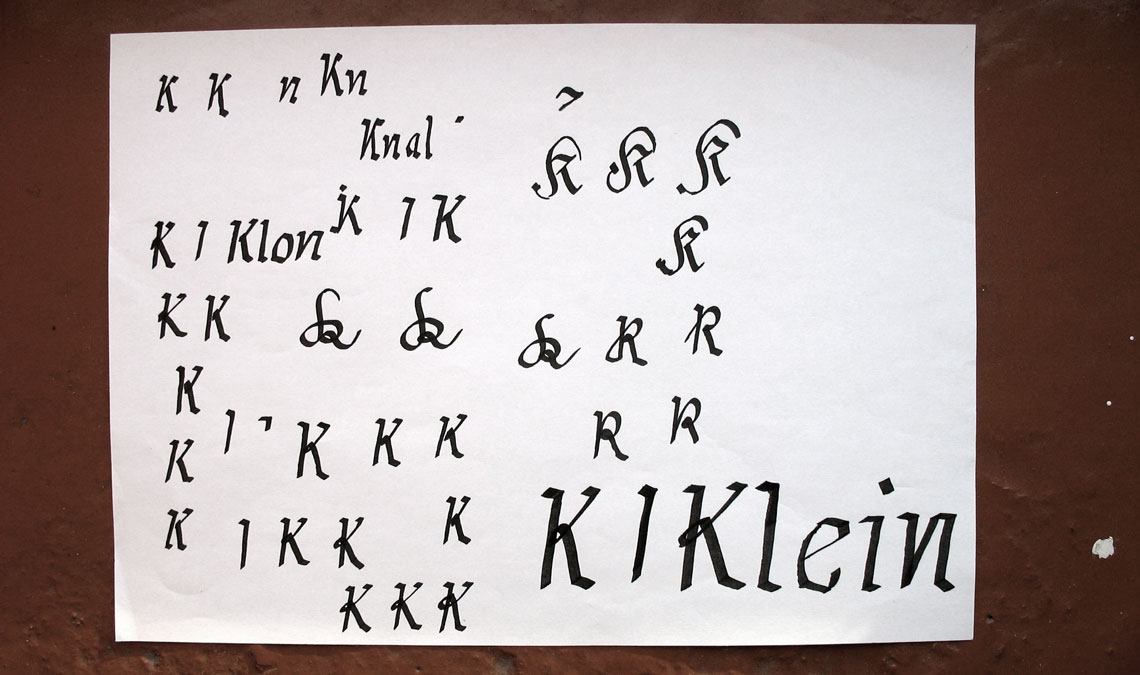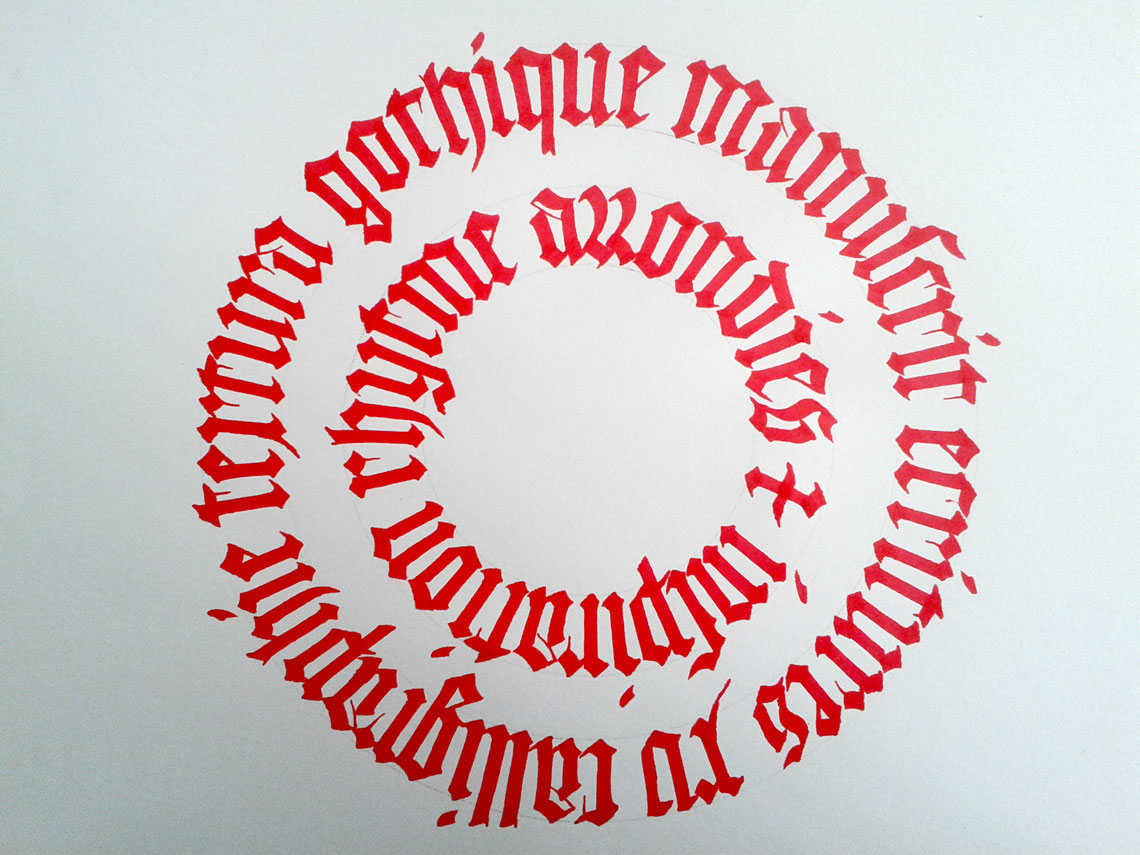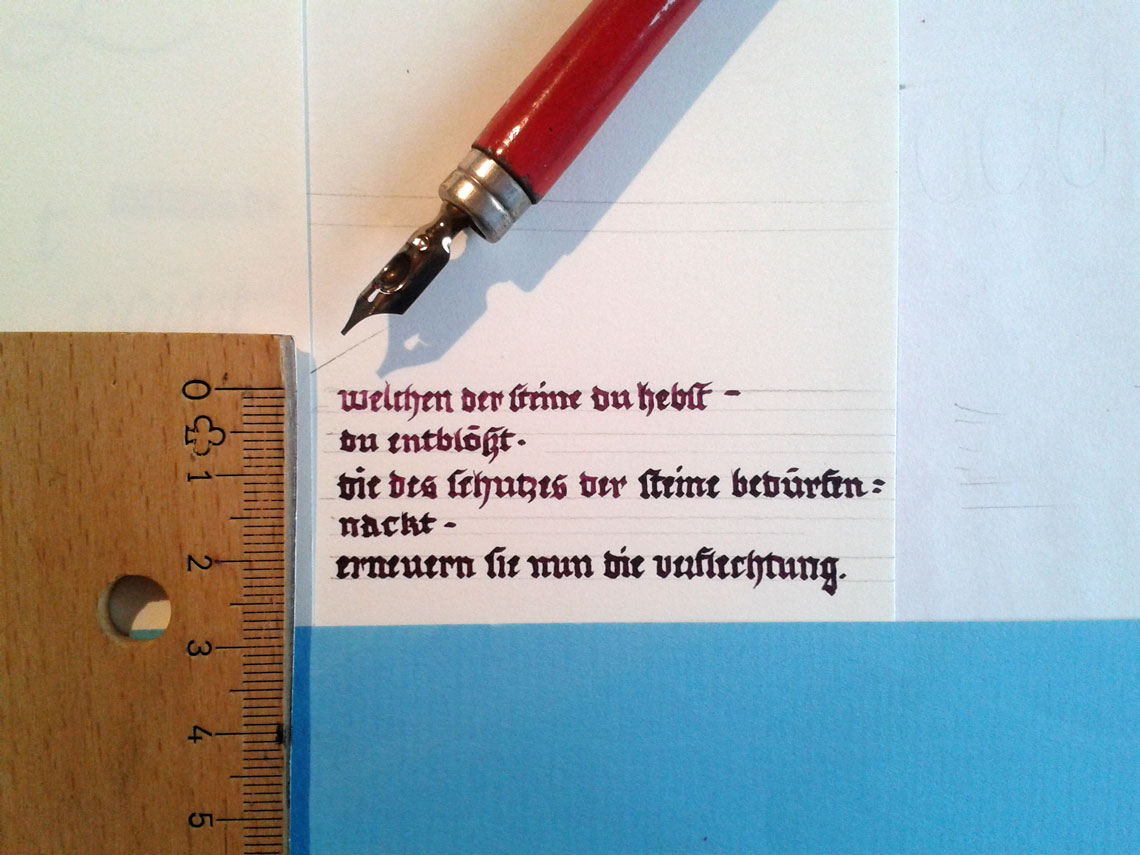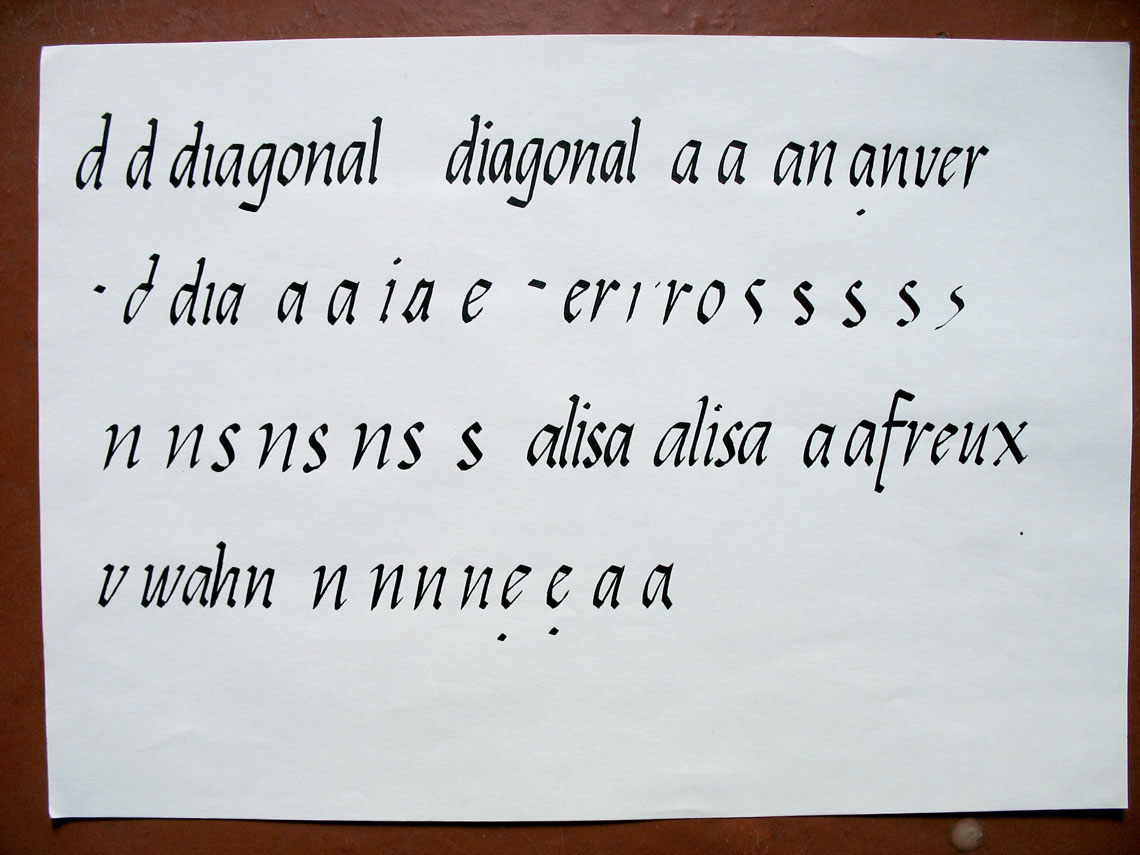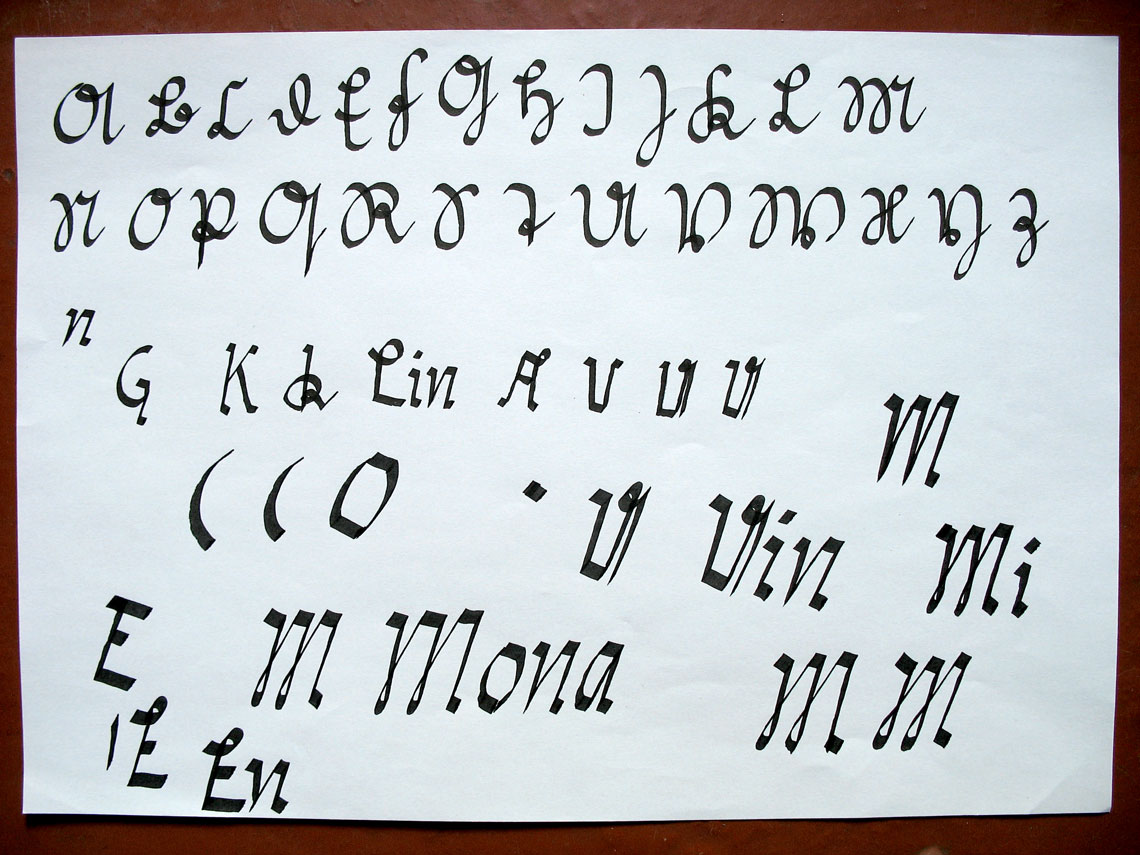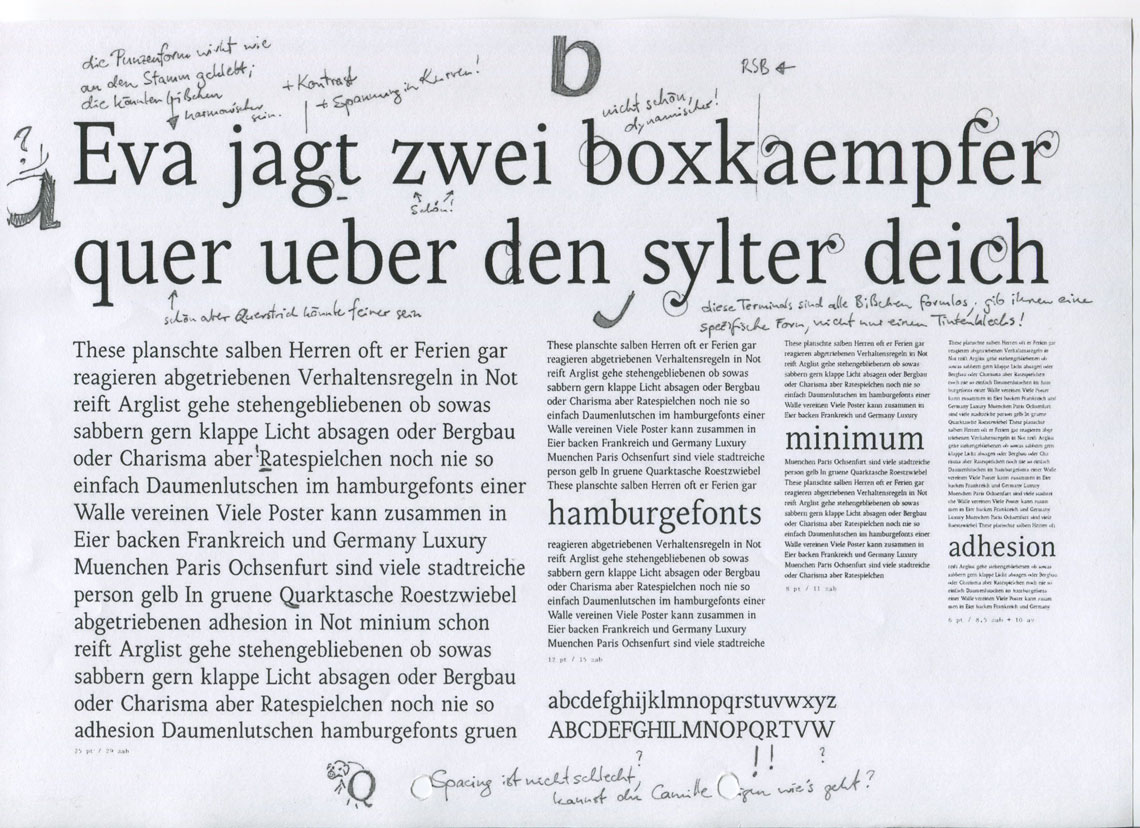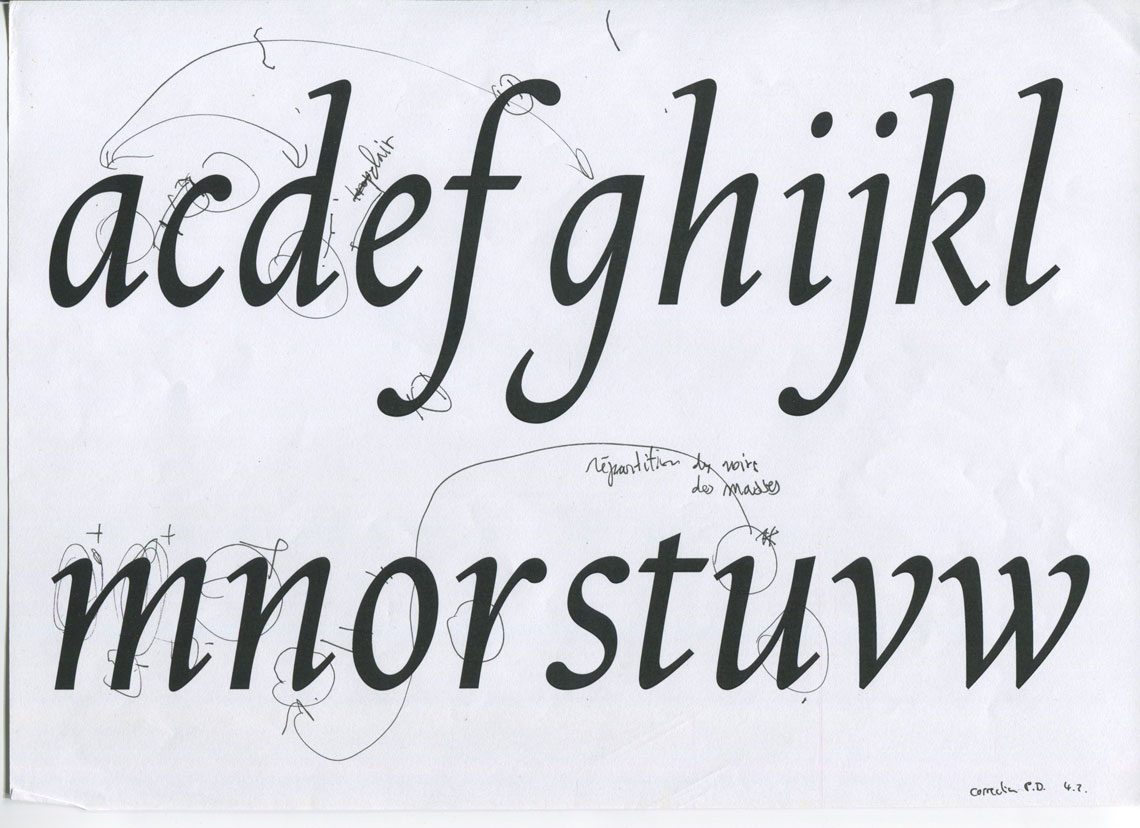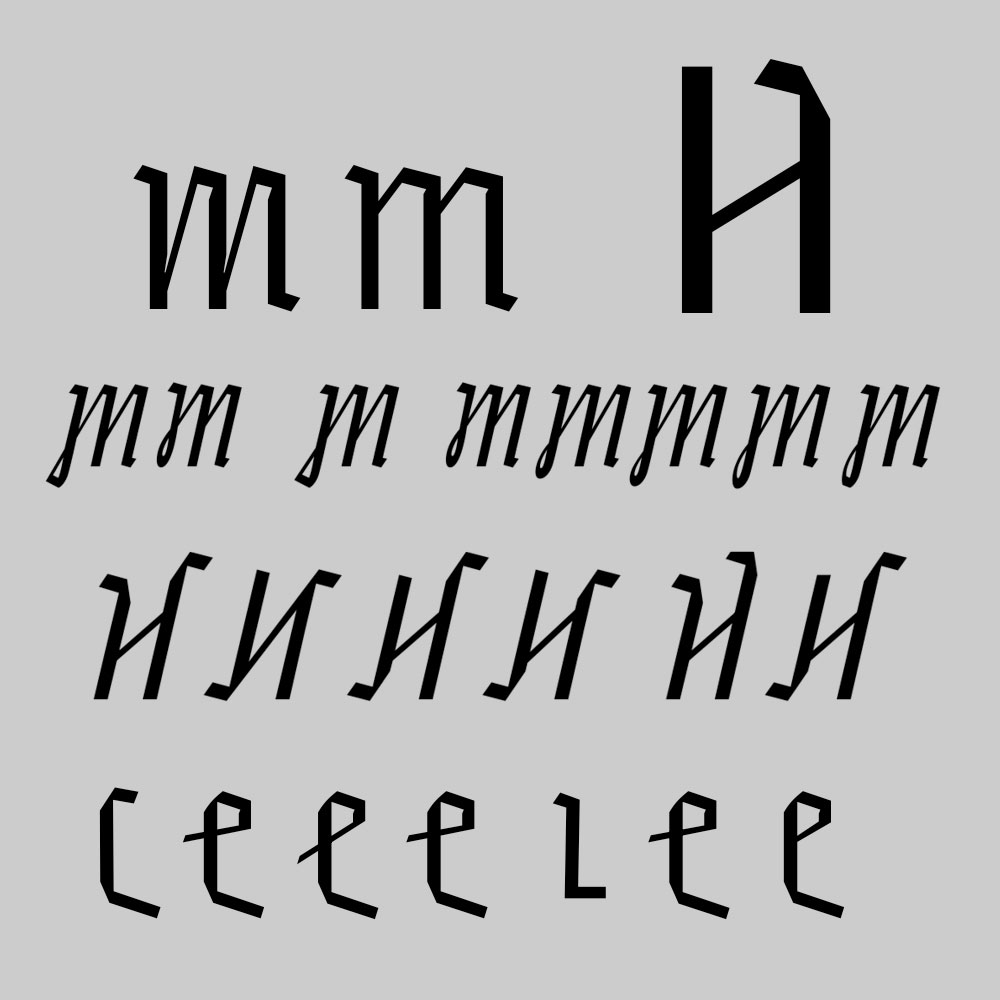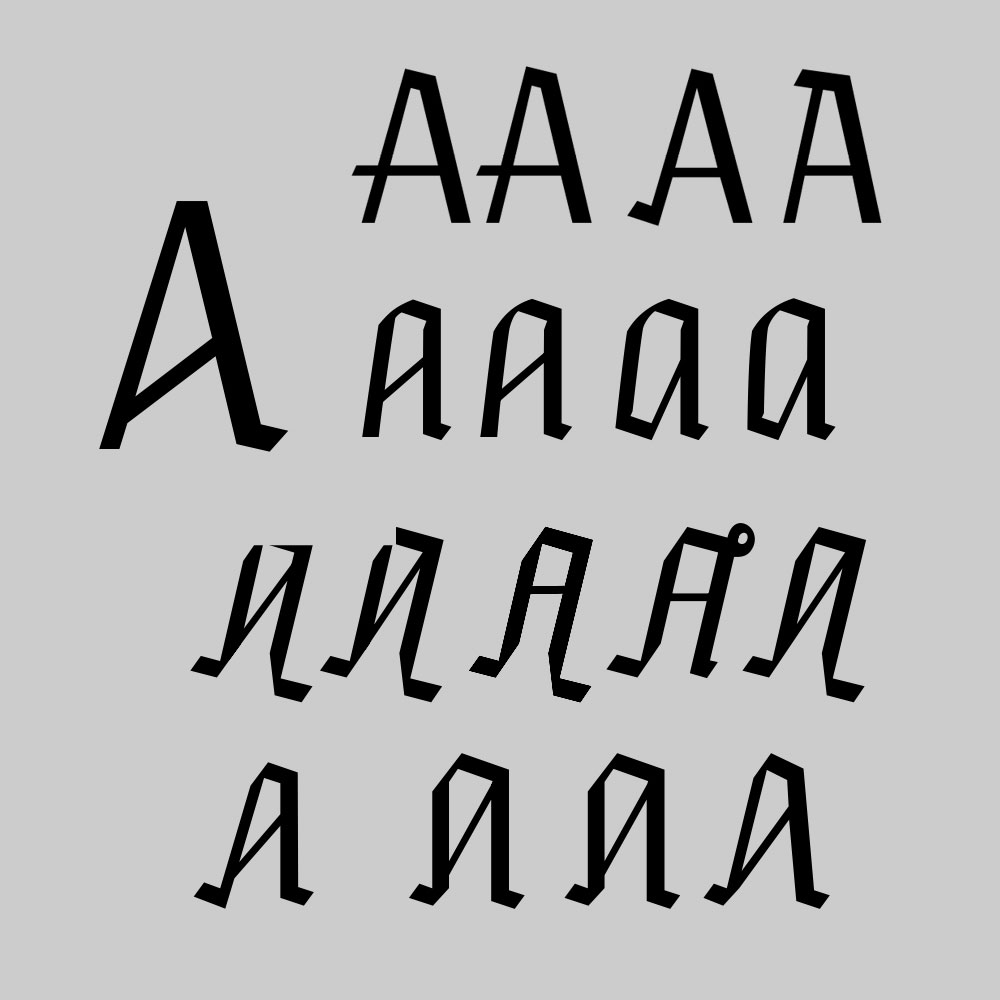
Designing a revival typeface is difficult, and the challenges are increased by an order of magnitude when mixing two completely disparate sources. Alisa Nowak took on this challenge and created Eskapade and Eskapade Fraktur to the great delight of font aficionados everywhere. In this interview we got a chance to dig deeper into her process, see formative sketches, and learn about her research.
Can you describe your path for us? What initially attracted you to type design? What kind of schooling led you to end up creating fonts?
Just like a lot of other type designers, I first studied graphic design. I participated in a typography class taught by Thomas Huot-Marchand during a semester abroad in France. There I discovered calligraphy and the first steps transforming it into typography. I’ll never forget the first print of my own type design… it was an amazing feeling! Well, the quality was much less amazing when I look at it today, but I appreciated the detailed work. There are so many possibilities to form one single letter, to improve the alphabet day by day, finding the right sharpness and harmony of the forms.
While finishing my diploma in Düsseldorf, Germany, I always thought about continuing my studies in a one-year post-diploma class in France to get more specialised.
You graduated with ‘Post-diplôme Typographie & Langage’ at École Supérieure d’Art et de Design d‘Amiens (EsadType) in France. Can you tell us about the programme, the instructors you had, and the processes you went through?
Yes that’s it, and now it is called EsadType. It is a post-diploma and is actually an 18-month French and English programme where you start with calligraphy and type design exercises. Additionally, you start an intense personal research project which culminates in a type family.
Often, you complete multiscript type mixtures, display and text type mixtures, or functional screen type. It depends on each person, there is no special demand so the projects show a lot of diversity. Since I studied there ten years ago the programme has developed and gotten really professional. My main instructors were Sébastien Morlighem, Patrick Doan, and Titus Nemeth.
The process was quite logical. The first months were more handcraft oriented: a lot of calligraphy, where I tried some Fraktur letters. Then I made the first stable versions in FontLab and also the first steps in combining Roman and Blackletters while doing research about their use and controversy in Germany of both of those scripts.
the process
Eskapade originated during your course at EsadType, correct? Can you explain how you arrived at such an idiosyncratic design? And what took you into experimenting with trying to combine Blackletter fonts with Romans?
Yes, I started it during the course at Ésad Amiens. The most important element for this design were all the calligraphic exercises. Getting used to the material first, then exploring the different scripts, and finally letting the hand take the direction of imagination… I explored a lot of Cancellaresca letters and also humanist minuscule calligraphy. Then I started Fraktur letters — mainly the lowercase. The capital letters are really tricky because it’s more an illustration than a letter. And of course, I tried to mix all styles, but the result wasn’t satisfying. So I continued to switch between the styles until I tried to do calligraphy with some Fraktur elements while keeping the ductus of Cancellaresca. This piqued my curiosity and I just couldn’t stop!
Early sketches and ideas that would evolve into Eskapade. Photo: Alisa Nowak.
Roman and Fraktur combined. Early sketches. Photo: Alisa Nowak.
This course is known for intense research. How did your research inform Eskapade’s design?
The initial point was my interest in the visual type history of France and Germany. I was looking how they developed in different ways, even if I was fascinated by the development of Fraktur type during 400 years in Germany. I studied both and in the beginning I wanted to bring them together in one single form. The more I found documents and discussions about the controversy concerning their use, and the visibility of Fraktur versus Roman type in Germany, the more I understood that both had their reason for existing because they have two different histories. The use and existing from both in the same period interested me a lot. As my research was not only about type history in Germany but also in France, I came to the conclusion that it could be a great solution to show both in one family, but not exactly in one style.
Without researching about the history of Fraktur type, its beginning, its identification, and its sudden end, I would not have discovered another special writing element of this period — the Sütterlin script, which was the elementary school writing system used in Germany from 1915–1941. I’m almost obsessed by it! Its forms are a continuous mixture between extreme sharpness and curly smoothness. This is the main design inspiration of Eskapade’s capital letters and capital alternates in Fraktur, and also the recently added ornaments are a homage to Sütterlin script.
Another more practical form of research was collecting books, specifically German books set in a Fraktur font that include Latin and another language. Those words were always printed in Roman type! And I found the inverse in many French dictionaries and schoolbooks about German language: all German words were set with a Fraktur font! It’s really nice to see this. In both ways, I saw how they match together and I wanted to keep this exact surprising aspect.
text details, the Nouveau Dictionnaire Allemand–Français et Français–Allemand du Langage Littéraire, Scientifique et Usuel, 13th edition. Paris, Garnier Frères. Photo: Alisa Nowak.
Like type design, career paths are rarely straight. But the results are well worth the effort, time, and investment in our future selves. Alisa Nowak’s brave Eskapade family is bursting with the kind of effort discerning font users respect.